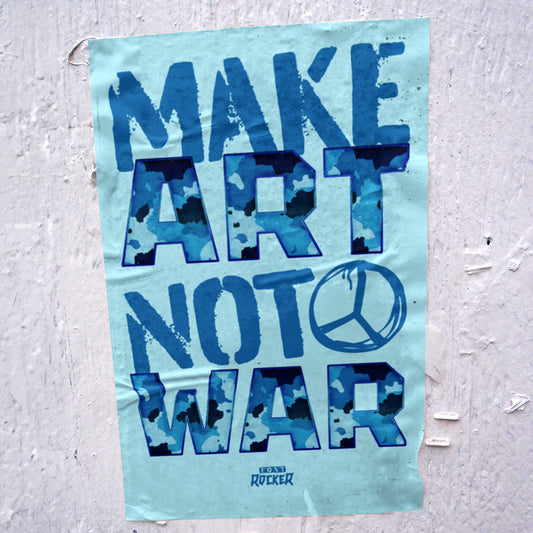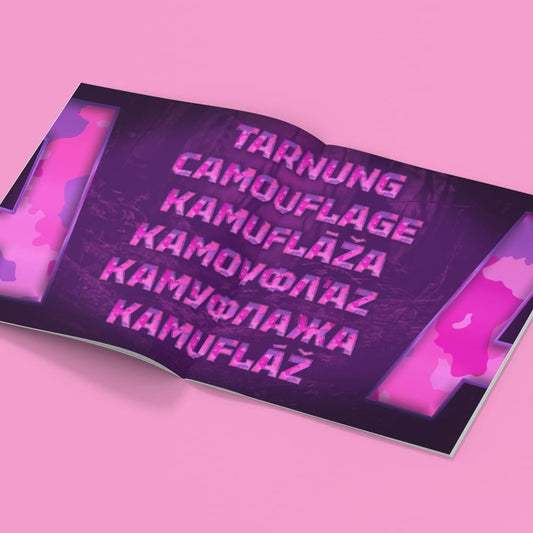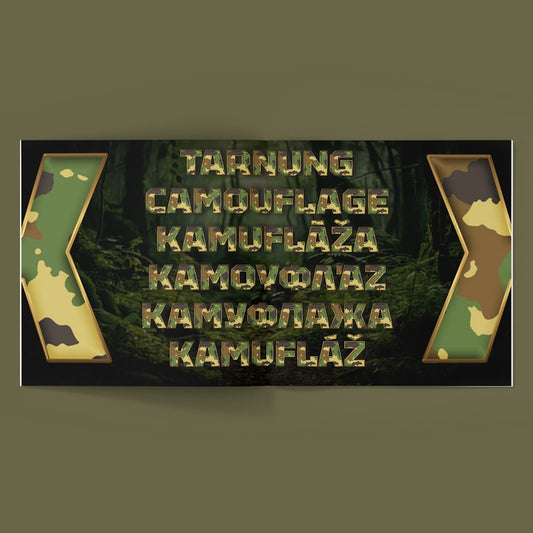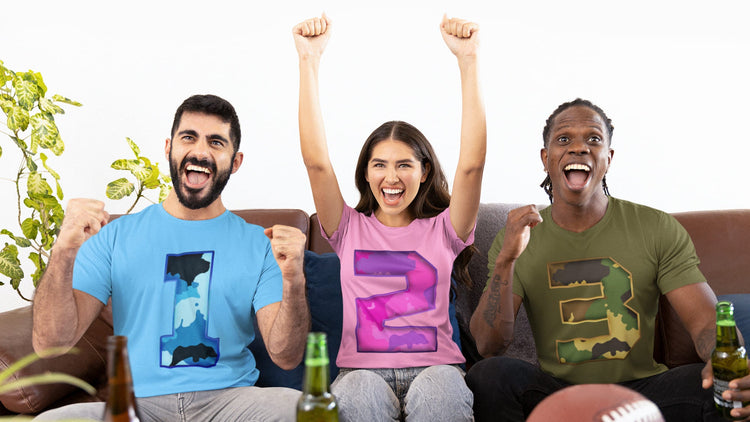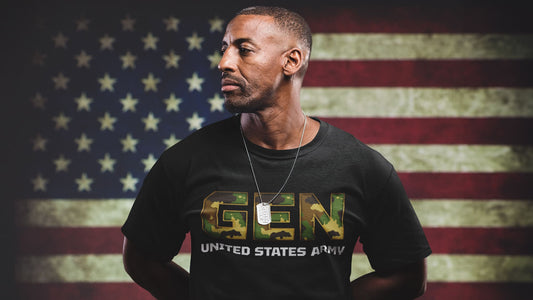
Collection: Camouflage Font Collection
Now you see me, now you don't.
Introducing the Camouflage Font Bundle: a premium collection of high-resolution, handcrafted camouflage fonts designed to elevate your creative projects.
This versatile bundle features an array of colors and patterns, perfect for diverse applications such as branding, advertising, packaging design, apparel creation, and digital media.
Each font in this meticulously curated set offers exceptional detail and unique texture that seamlessly blend into any project requiring a rugged or adventurous aesthetic. Whether you're aiming to enhance military-themed designs or add an edgy touch to modern layouts, the Camouflage Font Bundle provides you with the tools needed for unparalleled visual impact.
Elevate your design game with this exclusive bundle and transform ordinary text into extraordinary statements!